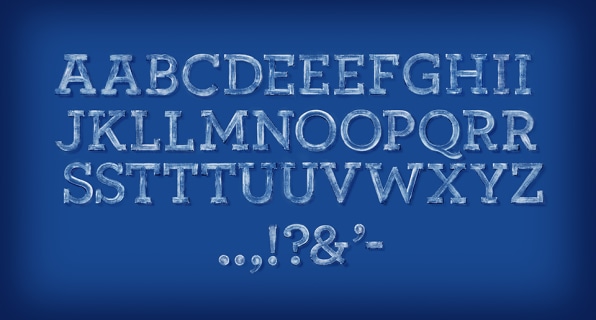
If the word ice is in the name of a product, getting some ice into an ad is kind of a no-brainer. It’s not something Dentyne Ice has shied away from in the past either. However, the brand’s latest campaign makes clever use of the stuff to deliver its message. Here, let us spell it out for you.
Dentyne Ice’s new print campaign conveys the arctic temperature of the product, both with words themselves and the way they’re rendered—with an alphabet built of ice. Using the new alphabet in advertising allows Dentyne to make all-copy ads that convey an extra message visually.
Created by agency McCann New York, the new campaign features the typographical skills of designer Craig Ward. Ward ended up creating physical models for the entire alphabet, shooting the letters outdoors in freezing weather rather than under the harsh conditions of the studio. The results have all the little crags and clarity of an ice block and look so cold you might feel it in your teeth.
Have a look at some examples of the typeface in action in the slide show above, and watch a video of the designer creating the icy letters below.